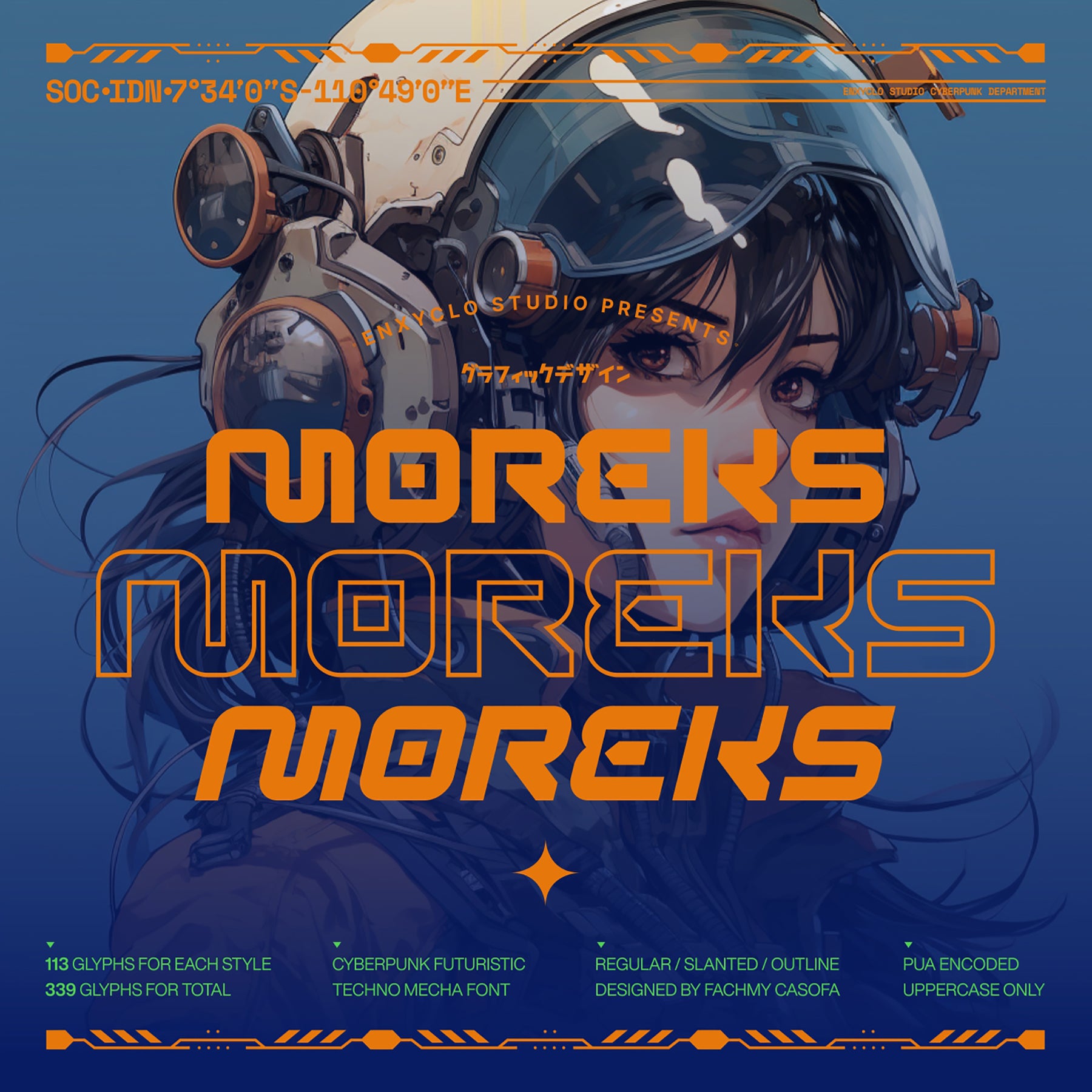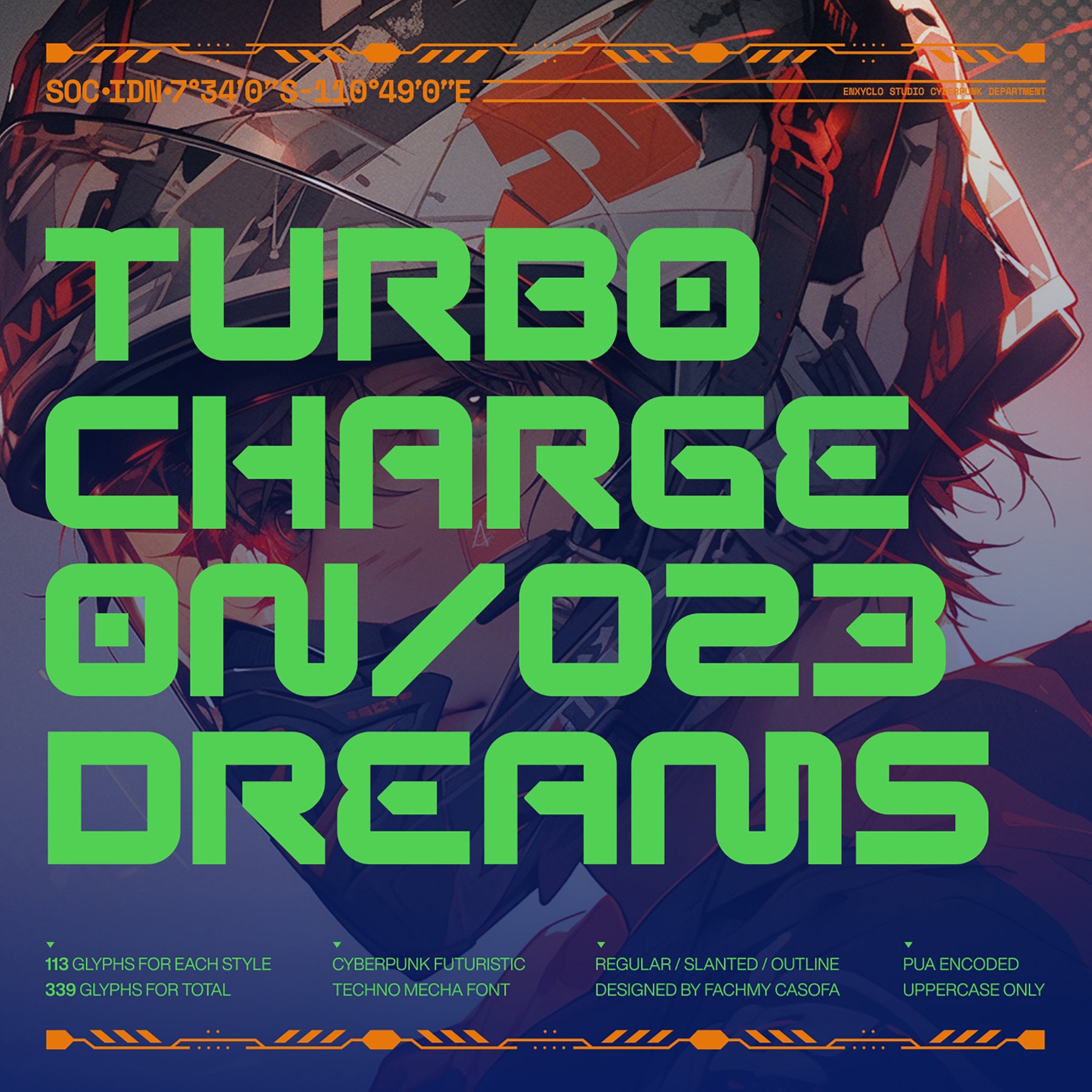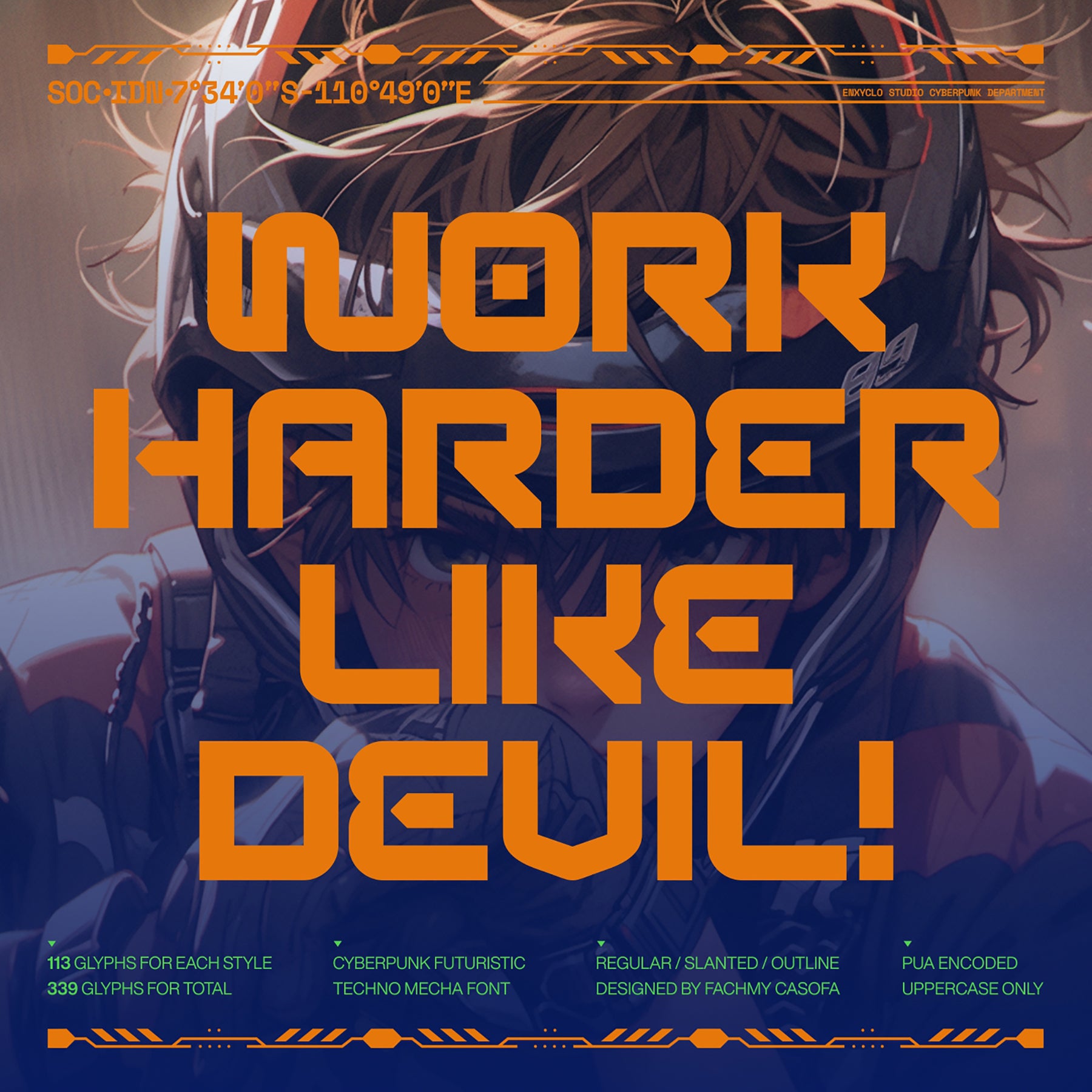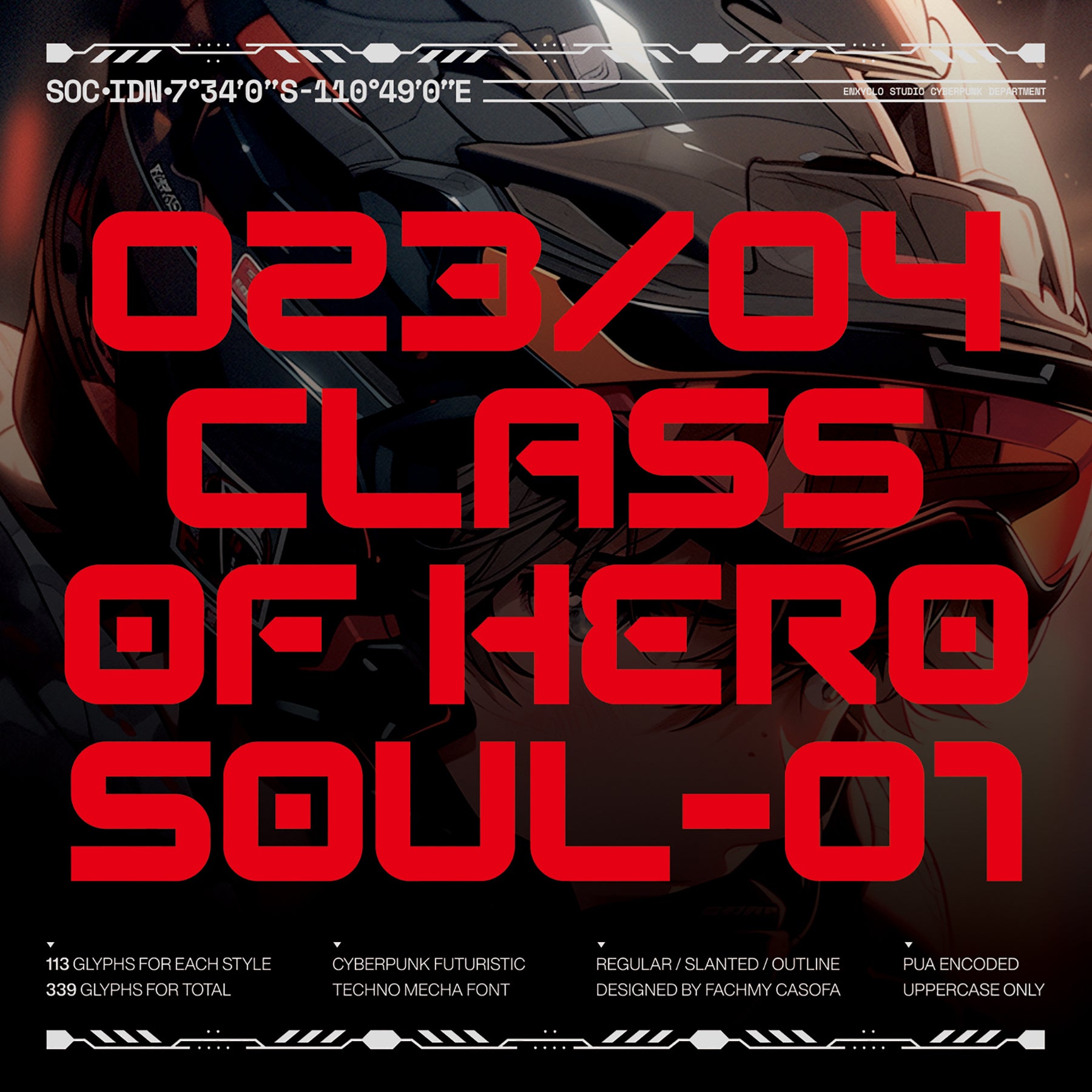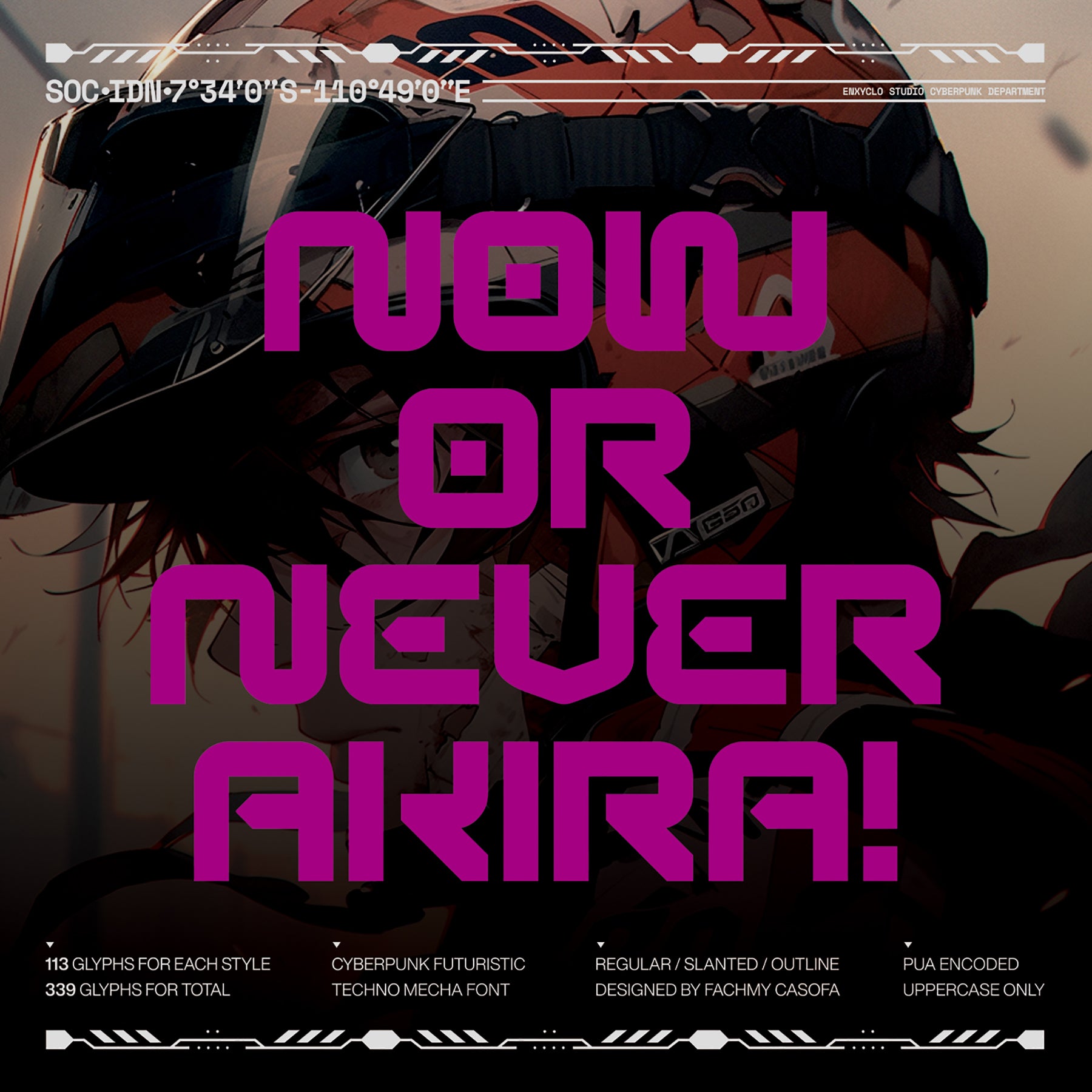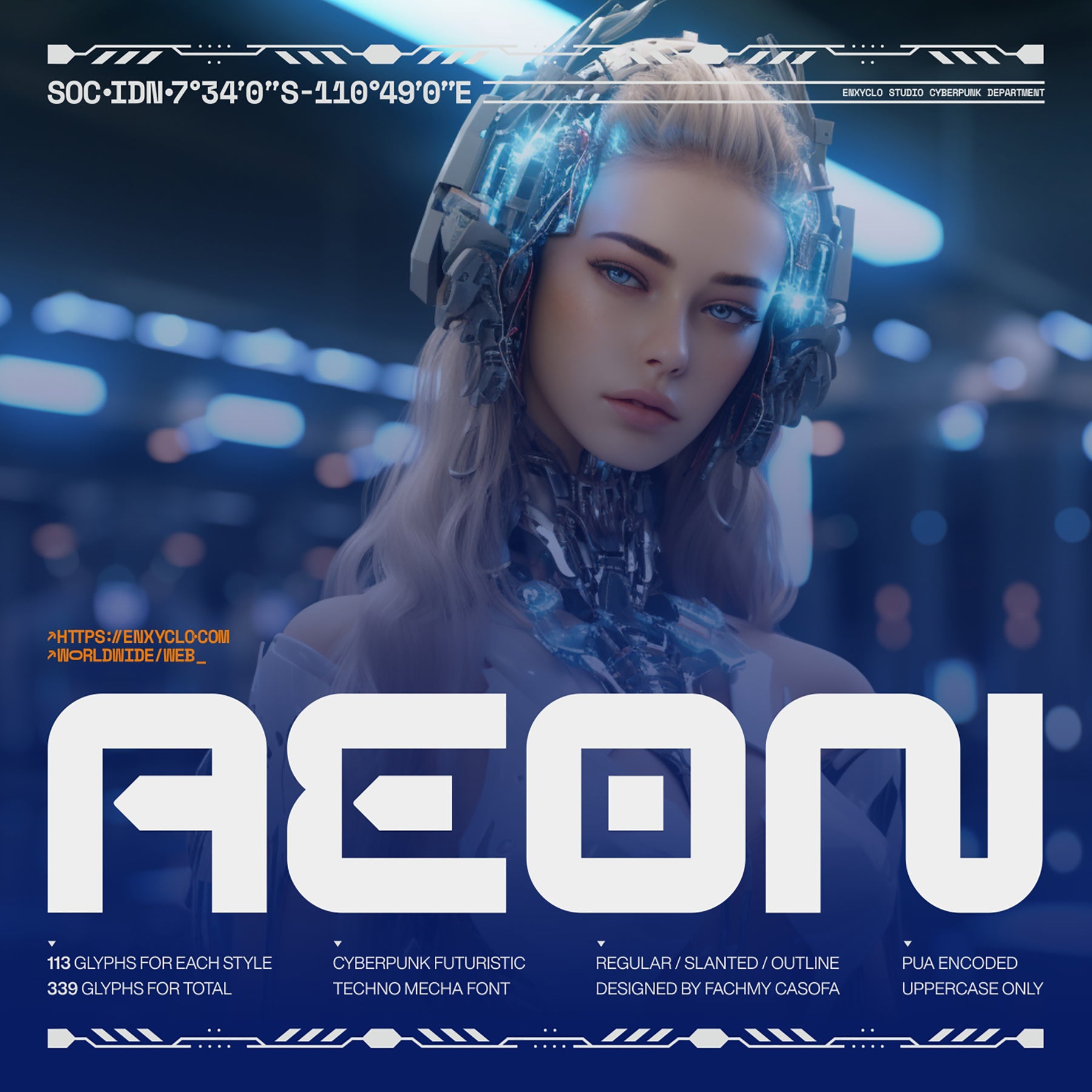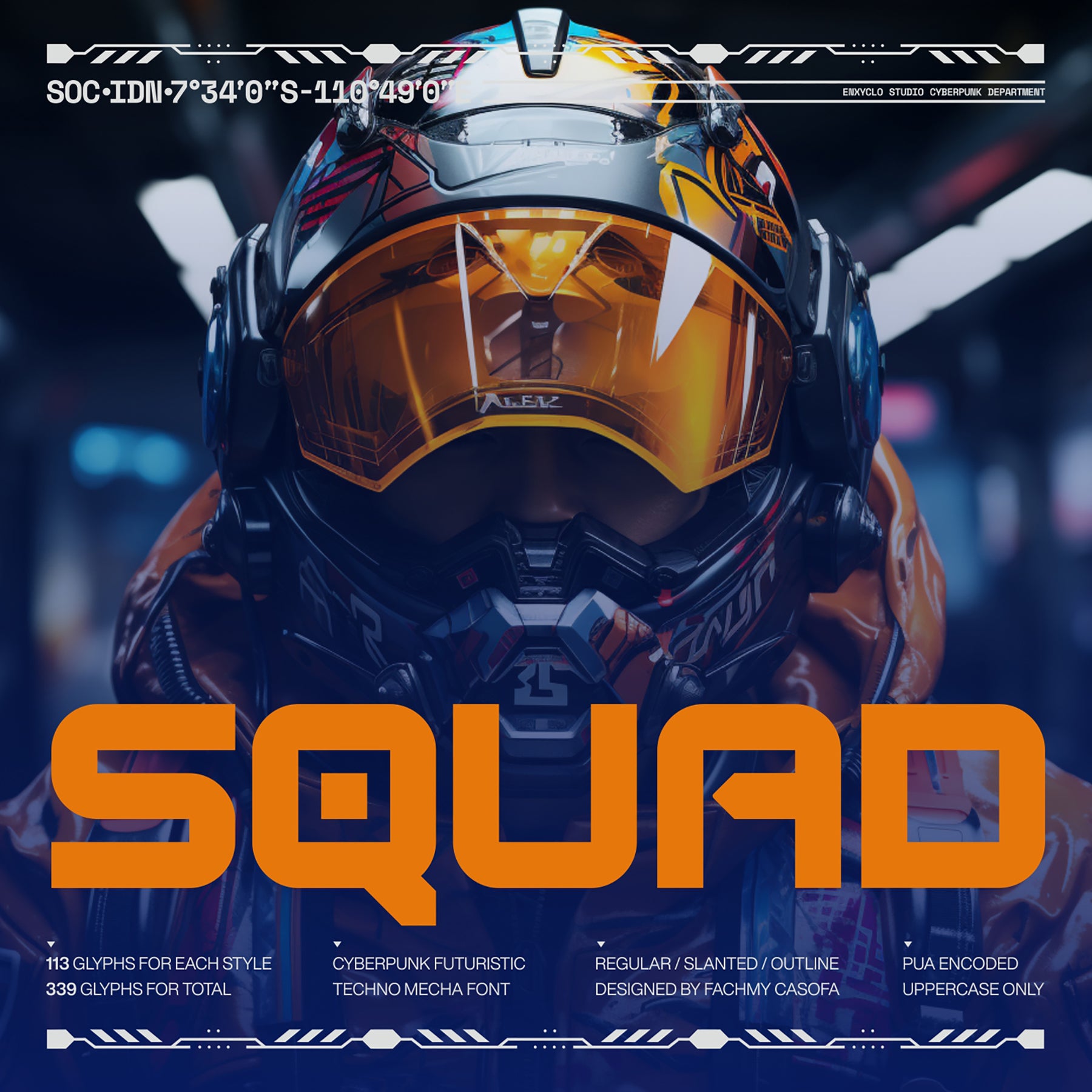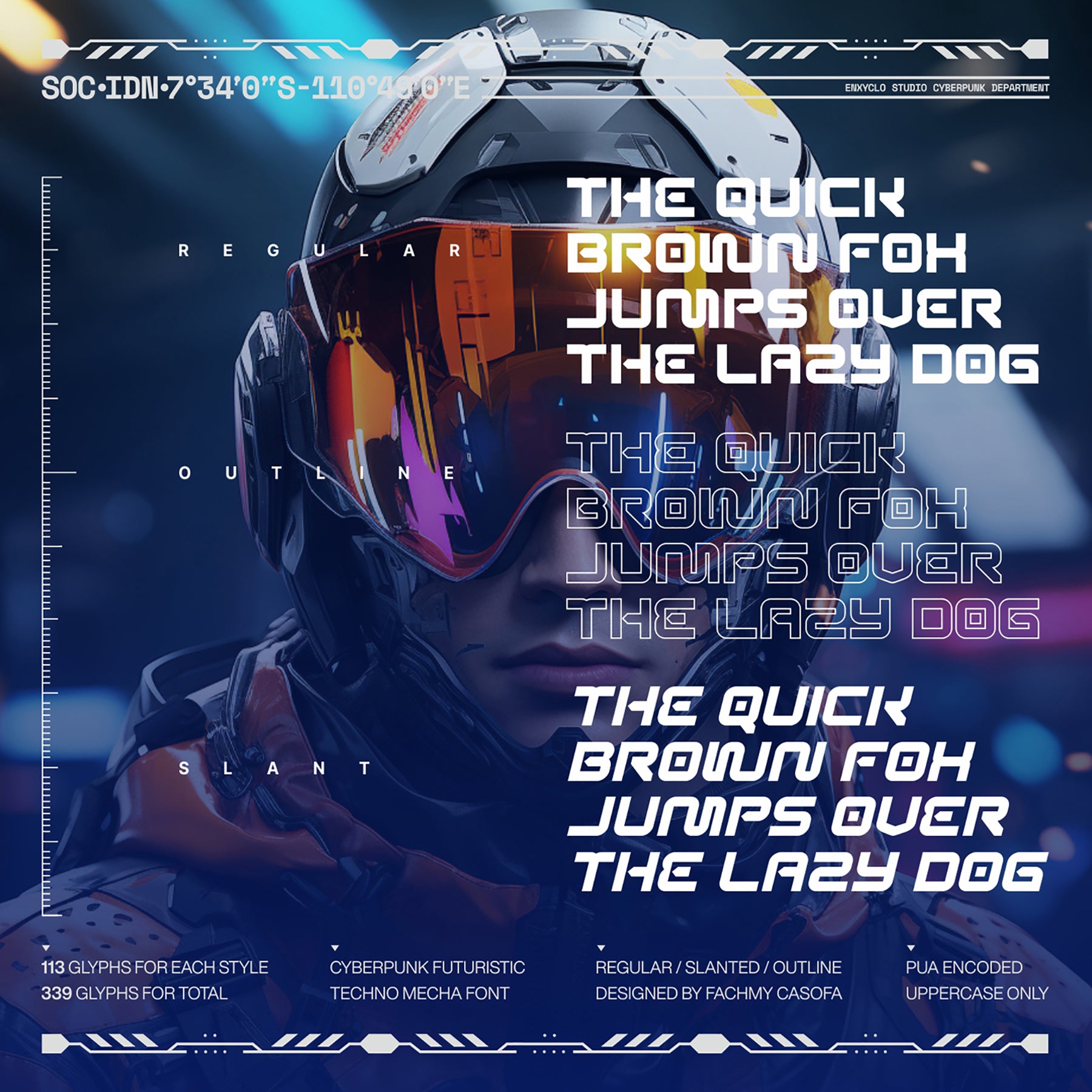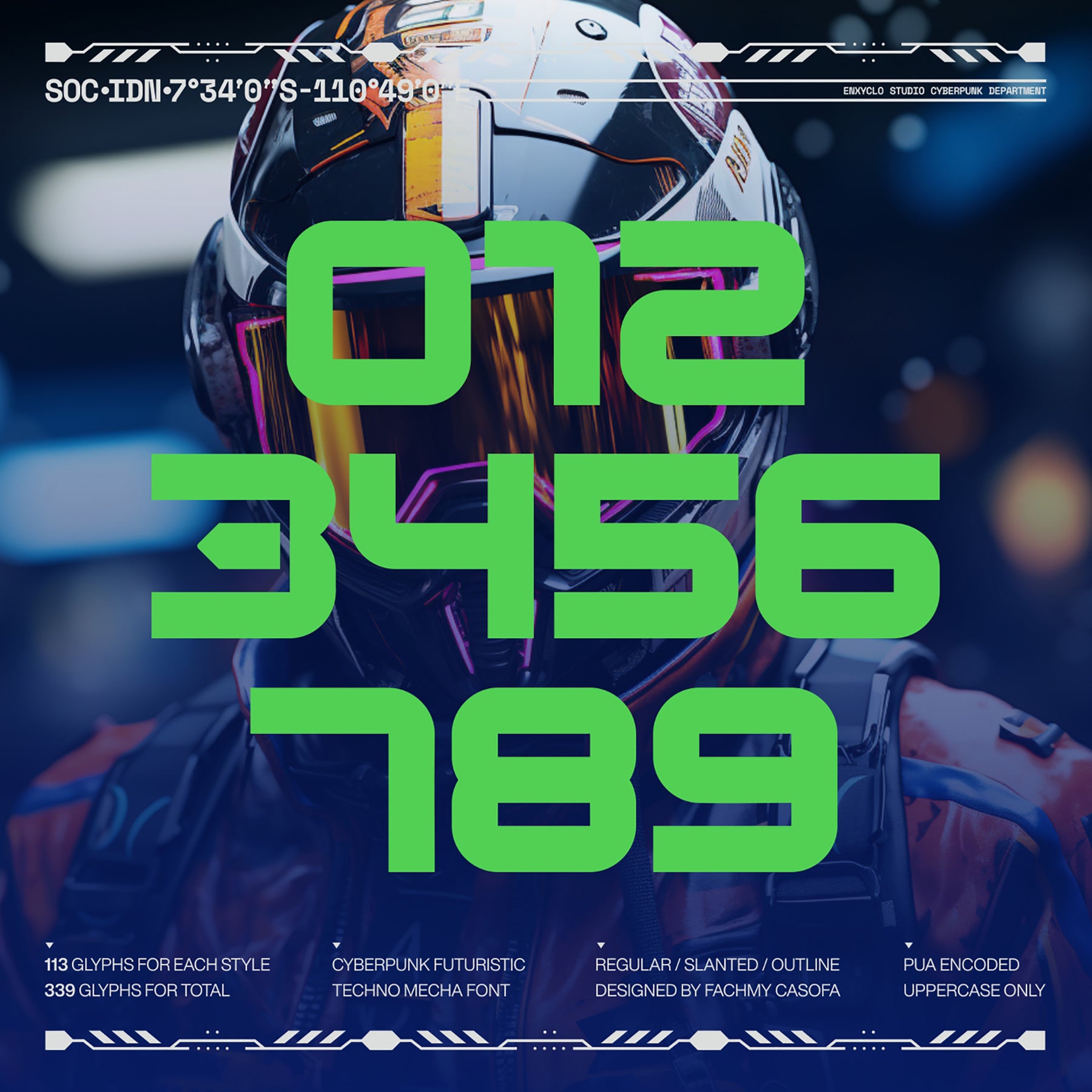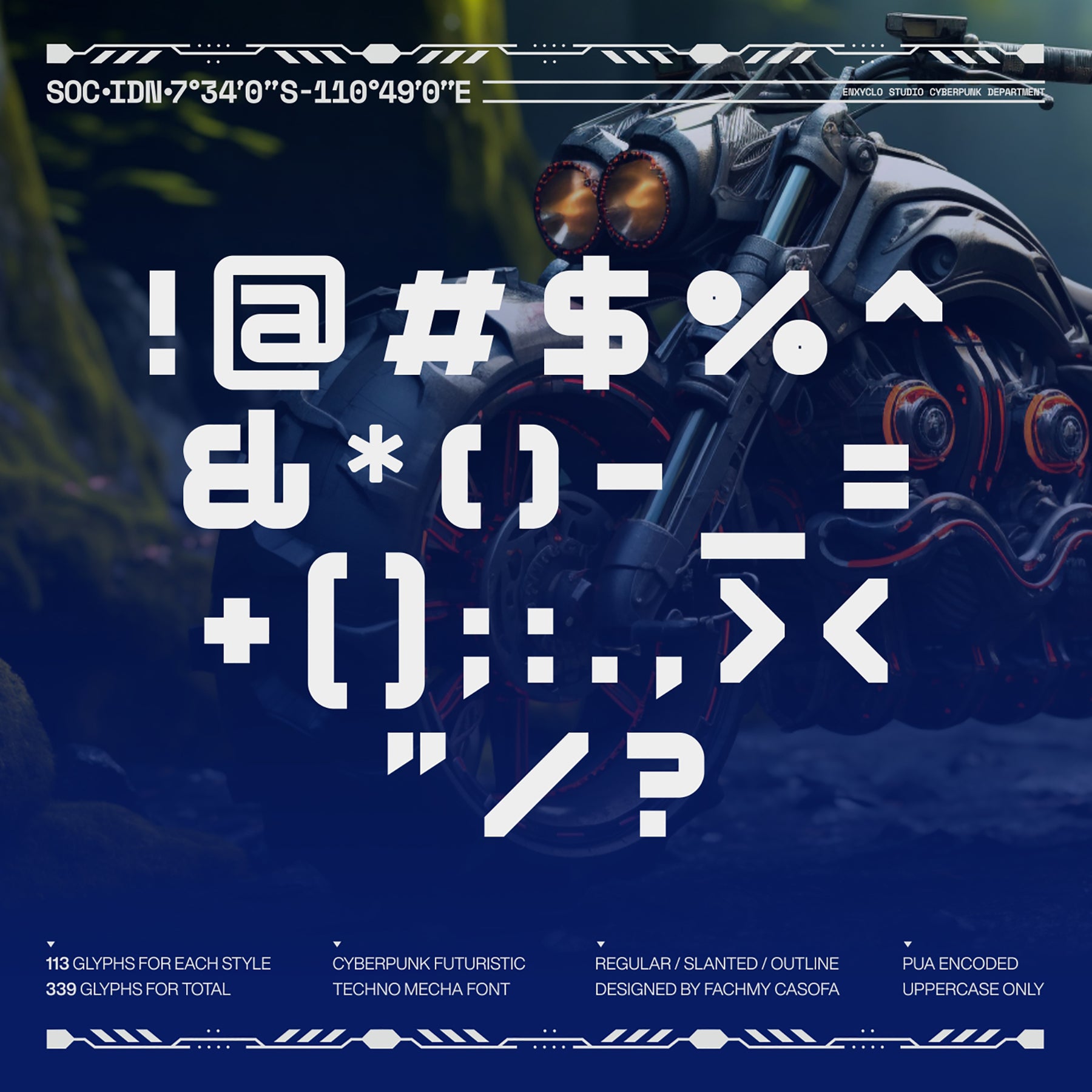
MOREKS Display Font
Experience MOREKS: a font that encapsulates the future with its striking display style. The carefully crafted typeface amplifies the potency and inspiration of your project. It impeccably suits any venture requiring a futuristic essence.
By employing this exquisite futuristic display font, you can undoubtedly distinguish your project from others. Explore the previews above to glean inspiration on its creative application.